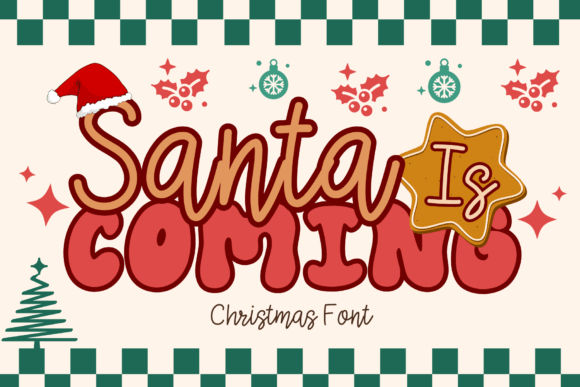
Are you ready to add a touch of festive magic to your designs? Look no further than Santa is Coming Font, the ultimate choice for all your Christmas-themed projects. Created by the talented team at Brown Cupple Fonts, this adorable decorative font captures the essence of playfulness and authenticity like no other.
Imagine the joy and excitement that Santa Is Coming Font can bring to your designs. Its charming and whimsical style will instantly transport your audience into a world filled with holiday cheer. Whether you're creating blog posts, logos, branding materials, ads, invitations, greeting cards, planners, photo albums, or decorations, this font is the perfect addition to amplify the festive spirit.
With Santa is Coming Font, your designs will stand out from the crowd. Its captivating curves and intricate details add a unique flair that will leave a lasting impression on anyone who lays eyes on it. Embrace the magic of the holiday season and let this font bring your visions to life.
But the benefits don't stop there. Santa is Coming Font is incredibly versatile and can be used for a wide range of projects. Its versatility allows you to unleash your creativity and explore endless possibilities. Whether you're aiming for a bold and eye-catching design or a subtle and elegant touch, this font has got you covered.